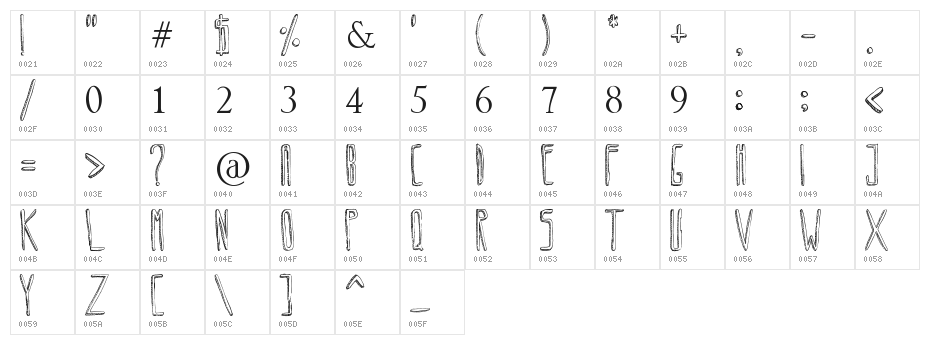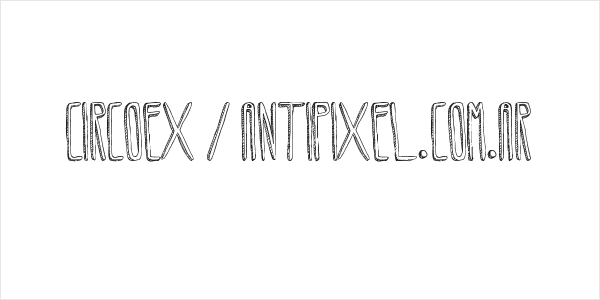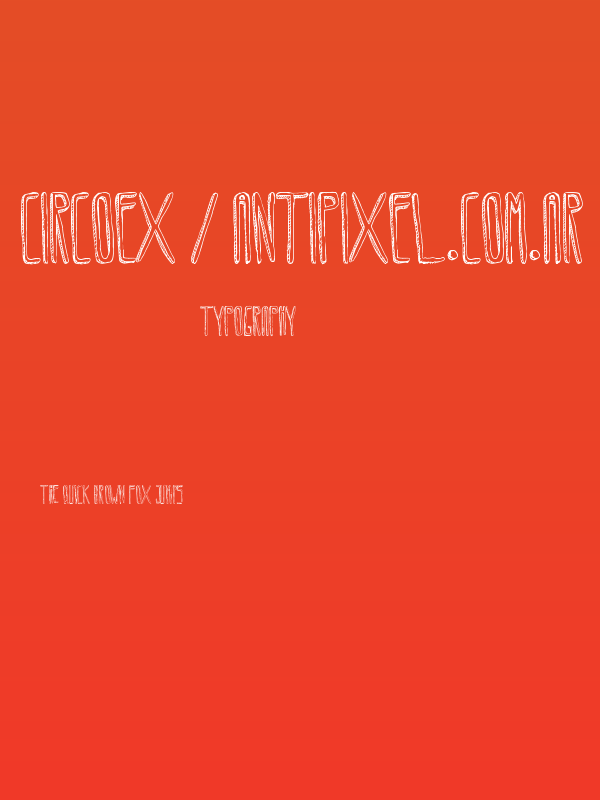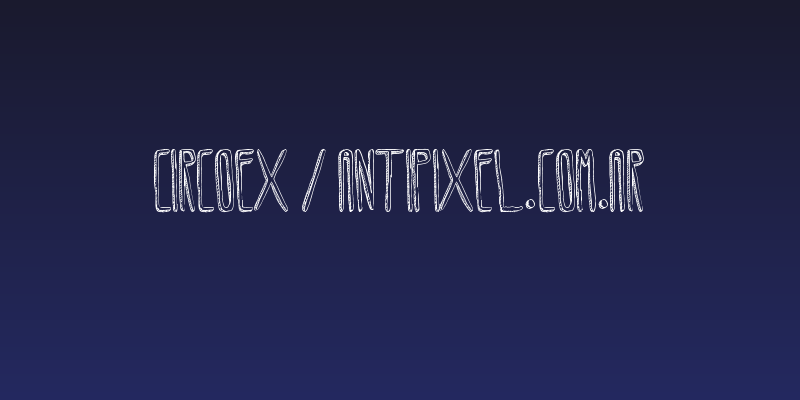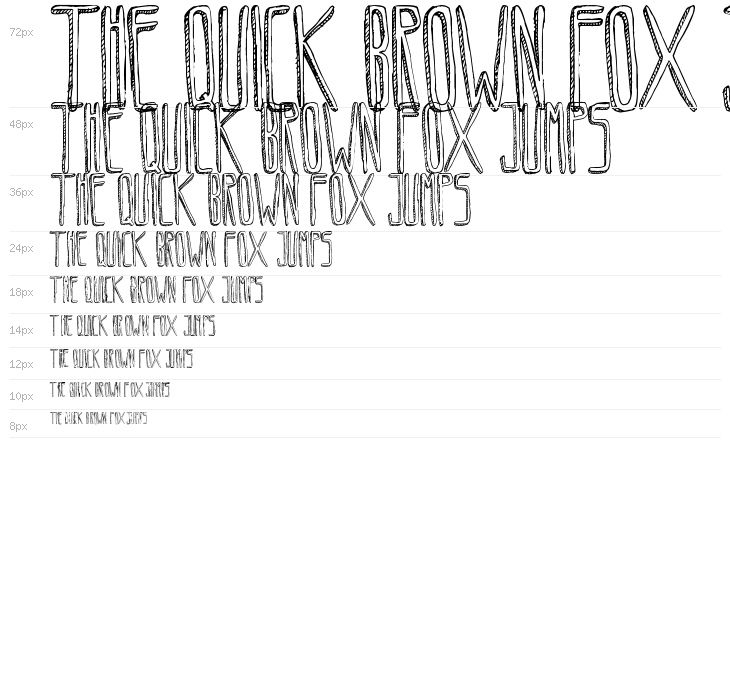
Circoex / ANTIPIXEL.com.ar Font
Circoex / ANTIPIXEL.com.ar Description
This font features a unique, hand-drawn aesthetic with a playful and artistic flair. The uppercase letters are characterized by a rope-like texture, giving them a three-dimensional appearance. The lowercase letters maintain a similar style, ensuring consistency throughout the typeface. The numerals are bold and clear, offering a more traditional serif style that contrasts with the decorative uppercase and lowercase letters. Special characters are included, maintaining the font's quirky and creative design. This font is perfect for projects that require a touch of whimsy and individuality.
| Overall Style | Artistic, Playful |
| Proposed Projects | Ideal for creative projects such as posters, invitations, and branding that require a unique and artistic touch. |